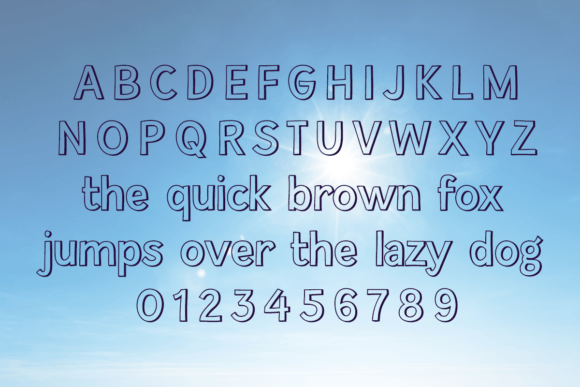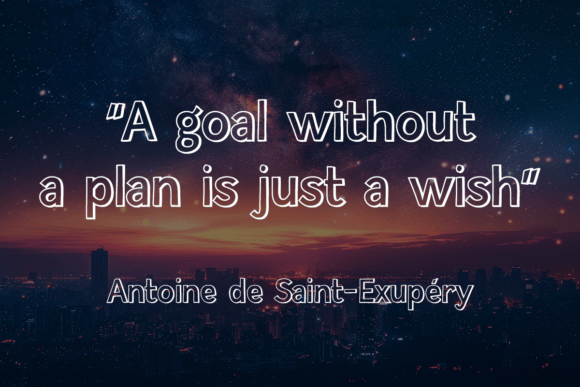
Introduction to Regular Day Font
Have you ever been in the middle of a creative project, pouring over lines of code or carefully crafting the perfect visual message, only to be stuck on the font? You know, that one crucial element that can make or break the entire design. For designers, finding the perfect font can be a daunting task, especially when it needs to convey a sense of modern elegance and sophistication. This is where the Regular Day Font comes in – a game-changing design resource that’s about to revolutionize your creative workflow.
With its unique outlined characters and striking drop shadow, the Regular Day Font adds a touch of high-quality sophistication to any project. Whether you’re working on a free download or a paid design, this versatile font is sure to elevate your text and make it pop against a transparent background. And the best part? It’s now available for you to download and start using in your next creative project.
Key Features of Regular Day Font
- High-quality design resource for creative projects, offering a unique and stylish look.
- Features a transparent background, making it ideal for use on images, videos, or other design elements.
- Comes in a single weight, perfect for everyday use and suitable for a wide range of creative projects.
- High-resolution design, ensuring crisp and clear typography, even at larger sizes.
- Designed to be a versatile design resource, suitable for use in various design contexts, from digital to print media.
Honest Review: Regular Day Font
I recently stumbled upon the Regular Day Font and I must say, it’s a great addition to any design resource collection. As a designer, I’m always on the lookout for high-quality fonts that can elevate my creative projects. This one definitely delivers.
What works well about the Regular Day Font is its versatility. It’s perfect for projects that require a clean and modern look. The font is highly legible, making it ideal for body text or headings. It’s also a great choice for designs that need a subtle yet professional touch.
- ✨ Versatile and suitable for various creative projects
One limitation I noticed is that the Regular Day Font doesn’t have a transparent background option, which might be a drawback for designers who prefer to use their own background images or colors.
Overall, I’m impressed with the Regular Day Font and would definitely recommend it to fellow designers. It’s a great addition to any design resource collection and can help take your creative projects to the next level.
Tips for Getting the Most Out of Regular Day Font
To get the most out of Regular Day Font, consider using it on a transparent background to give your design a clean and modern look. You can also use it in combination with other design elements, such as images and graphics, to create a visually appealing design. Regular Day Font is a versatile design resource that can be used in a variety of creative projects.
Regular Day Font is commonly used in creative projects, such as blog posts, social media graphics, and presentations. It’s also a popular choice for designers who need a high-quality, free download font for their projects. Whether you’re working on a small project or a large-scale design, Regular Day Font is a great choice for adding a professional touch to your design.